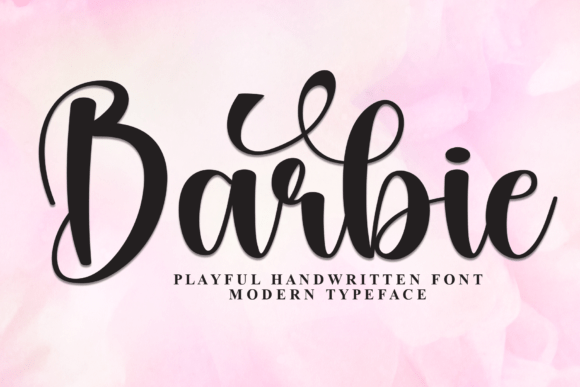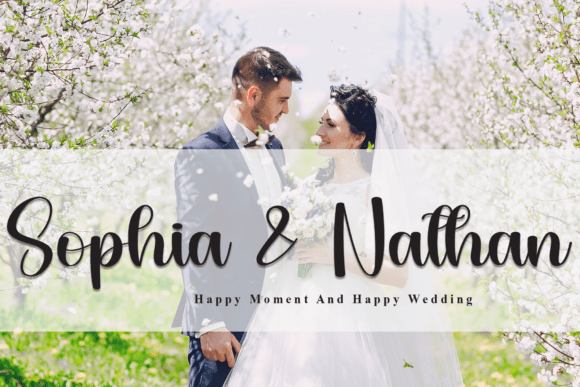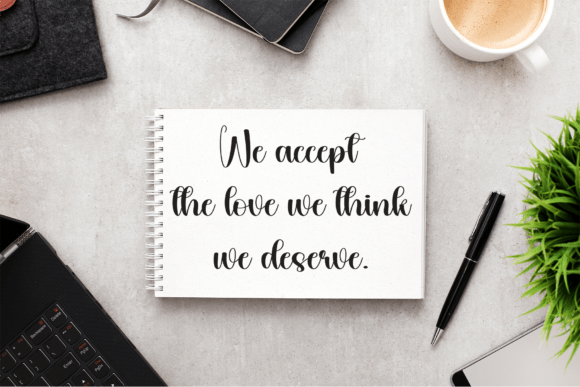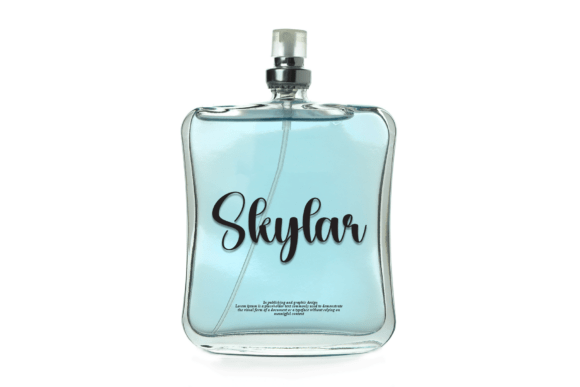
About the Barbie Font
The Barbie Font is here to transform your projects with its distinctive character and style. Barbie is a stylish handwritten script font that blends modern elegance with a playful touch. Its fluid strokes and charming curves bring a personal feel to any design. Ideal for logos, packaging, and invitations, this typeface adds warmth, sophistication, and creativity to every project.
Barbie Font Usage Examples
Barbie Font Example